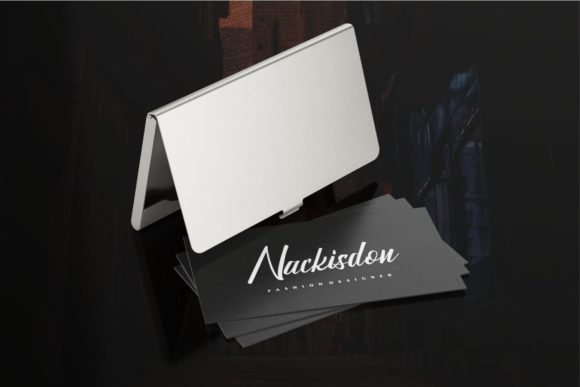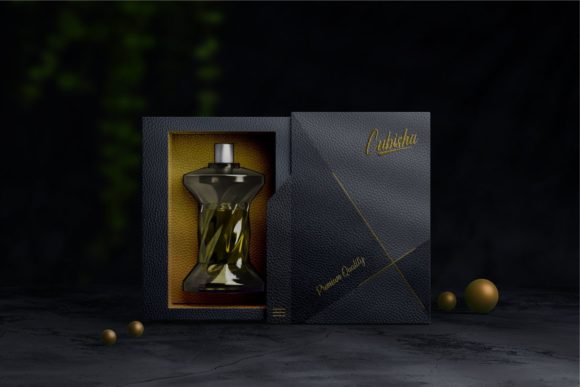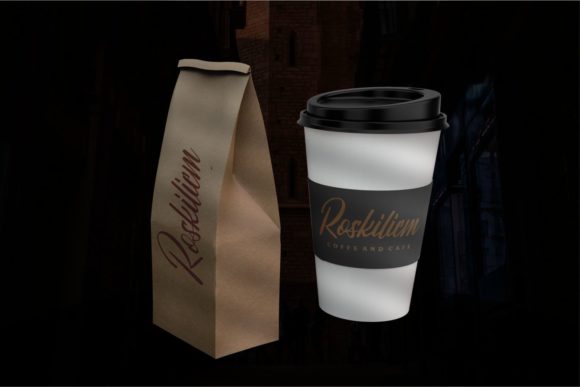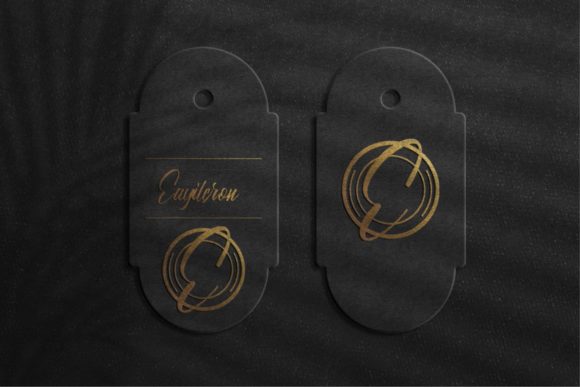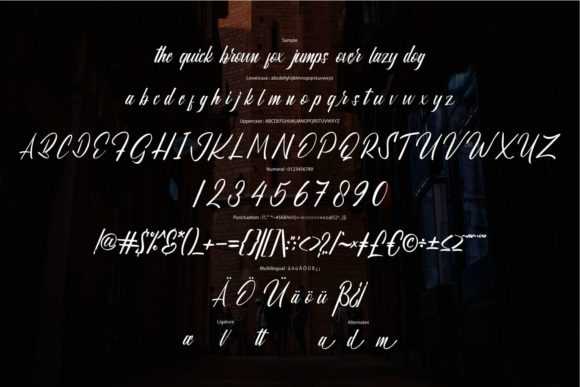
Introducing Barcellona Font: Elevate Your Designs with Elegance and Flair
Are you on the hunt for a font that exudes sophistication, elegance, and a touch of whimsy? Look no further than Barcellona Font, a delicate and flowing handwritten font that is sure to take your designs to the next level. With its beautiful and well-balanced characters, Barcellona is the perfect addition to any creative project, from branding and advertising to crafting and DIY endeavors.
The Characteristics of Barcellona Font
Barcellona Font is a true showstopper, boasting a range of characteristics that make it a versatile and eye-catching choice for designers and crafters alike. Some of its key features include:
- Delicate and elegant: Barcellona’s slender lines and gentle curves give it a refined, sophisticated feel that’s perfect for designs that require a touch of luxury.
- Flowing script: The font’s smooth, connected letters create a sense of movement and fluidity, making it ideal for designs that need to convey a sense of dynamism and energy.
- Well-balanced characters: Each letter in the Barcellona Font has been carefully crafted to ensure that it looks beautiful on its own and in combination with other letters, making it easy to create harmonious and visually appealing text.
Why Choose Barcellona Font?
So why should you choose Barcellona Font for your next design project? Here are just a few compelling reasons:
- Versatility: Barcellona’s elegant and refined aesthetic makes it suitable for a wide range of designs, from formal and professional to playful and creative.
- Emotional connection: The font’s flowing script and delicate lines have a way of evoking emotions and creating a connection with the viewer, making it perfect for designs that need to convey a sense of personality or story.
- Easy to read: Despite its elegant and refined aesthetic, Barcellona Font is surprisingly easy to read, even at smaller sizes, making it a great choice for body text as well as headlines.
How to Use Barcellona Font in Your Designs
Ready to add Barcellona Font to your design toolkit? Here are a few ideas to get you started:
- Branding and logos: Use Barcellona Font to create a sophisticated and elegant brand identity that sets your business apart from the competition.
- Advertising and marketing: Add a touch of luxury and refinement to your ad campaigns with Barcellona Font, perfect for highlighting special offers or promotions.
- Crafting and DIY projects: Bring a touch of elegance and whimsy to your crafting and DIY projects, from party invitations to handmade cards and gift tags.
Tips for Getting the Most Out of Barcellona Font
To really make Barcellona Font shine in your designs, here are a few expert tips to keep in mind:
- Experiment with colors: Barcellona Font looks beautiful in a range of colors, from soft pastels to rich jewel tones, so don’t be afraid to get creative and try out different hues.
- Play with textures: Add an extra layer of depth and interest to your designs by pairing Barcellona Font with different textures, from smooth and sleek to rough and distressed.
- Mix and match: Don’t be afraid to combine Barcellona Font with other fonts and design elements to create a unique and eye-catching look that’s all your own.
In conclusion, Barcellona Font is a true gem for designers and crafters looking to add a touch of elegance and sophistication to their projects. With its delicate lines, flowing script, and well-balanced characters, this beautiful handwritten font is sure to bring a new level of refinement and whimsy to your designs. So why wait? Add Barcellona Font to your toolkit today and see the difference it can make!